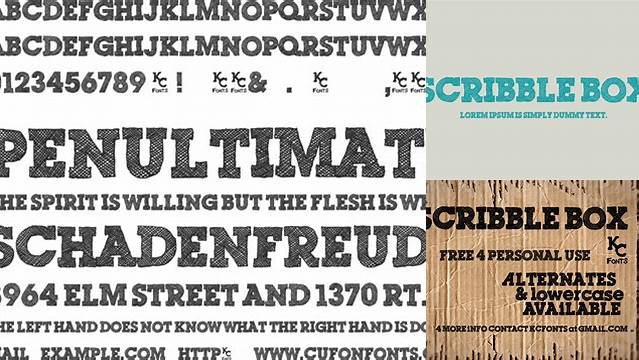
Scribble Box Font: Free Download & Design Tips
Scribble Box Font: Free Download and Unleash Your Creativity
Hey guys! Are you looking for a way to add a touch of fun, personality, and a handmade feel to your projects? Look no further! The Scribble Box font might be just what you need. This awesome font is all about that cool, scribbled look that can make your designs pop. And the best part? You can get a Scribble Box font free download! Ready to dive in? Let's get started.
What Makes Scribble Box Font So Awesome?
First off, let's talk about what makes the Scribble Box font so special. It's not just another font, trust me. The whole vibe is about that handwritten feel. It's like someone took a pen and just doodled it out, giving your text an organic, imperfect, and super engaging look. This kind of style is perfect for projects where you want to show a bit of personality and a human touch. I mean, who doesn't love that?
This font is fantastic for creating a sense of playfulness and energy, which makes it ideal for grabbing attention. Think about it: you're scrolling through the web or checking out ads, and a font that's all neat and clean might just blend in. But the Scribble Box font, with its quirky, scribbled style, immediately draws your eye. It's like, "Hey, look at me! I'm fun!" You can use the Scribble Box font for a whole bunch of things, like designing eye-catching logos, super cool social media posts, and even creating a unique look for your website. It's the perfect way to make your brand stand out in a crowded world. Whether you're putting together an invitation for a birthday party, designing a flyer for a local event, or just want to spice up your personal blog, the Scribble Box font can add that much-needed spark. And seriously, it’s easy to download and install, so you can start using it right away! So if you are on the lookout for that awesome and great design, the Scribble Box font is always a great choice! Get that Scribble Box font free download today.
Using the Scribble Box Font in Your Projects
Now that you've got your Scribble Box font free download and you've installed it, let's talk about how you can put it to good use. This font is incredibly versatile, and you can use it in a ton of creative projects. The whole point of using the Scribble Box font is to add a unique, handcrafted touch to your designs. Think about it: instead of going with a boring, standard font, you're choosing something that has character and personality. This can make a huge difference in how your audience perceives your work. A good example is using it for creating logos. A logo is the face of your brand, so it needs to be memorable and reflect your brand's personality. The Scribble Box font is great for making logos that feel approachable, friendly, and creative.
Another great way to use the Scribble Box font is for social media posts. In a world where everyone is competing for attention, your posts need to stand out. Using this font is an easy way to make your content pop. Whether you're sharing quotes, announcements, or just some fun graphics, the font can add that extra something that grabs people's attention. You can also use the font for designing website elements. Websites are all about creating an engaging user experience. The Scribble Box font can be used for headlines, calls to action, or even just to add a bit of visual interest to your site. It's a great way to make your website feel more unique and less generic. Finally, this font is also perfect for creating print materials. The font can be used for brochures, flyers, posters, and more. The style can make your print materials feel more personal and engaging. The best part? The Scribble Box font free download is easy to get.
Tips and Tricks for Using Scribble Box Font Effectively
Alright, you've got your Scribble Box font free download and you're ready to go. But before you dive in, here are a few tips to help you get the most out of this awesome font. Keep in mind that the Scribble Box font is bold and unique. It’s not always the best choice for every situation. While the font can add a touch of playfulness and personality to your design, it can also be a little difficult to read at times. So, use it in moderation. When choosing this font, think about what you are trying to communicate and who your target audience is. If you are designing a poster or a website that is geared toward kids or young adults, this font can be a great choice. If you are working on a more professional or formal project, it may not be the best option. Try to mix it with other fonts. Pairing it with a clean, readable font can create a nice contrast and improve readability. For example, you could use the Scribble Box font for headings and a more standard font for body text.
When using the font, be mindful of the size. Because of its unique style, it can become difficult to read if it is too small. Experiment with different sizes to find what works best for your project. You can also play with the color. The Scribble Box font looks great in a variety of colors. Don’t be afraid to experiment. Also, be careful about overusing the font. When used sparingly, the font can be a great tool for adding a touch of playfulness to your design. Using the font too much can make your design look messy and unprofessional. Finally, make sure you have the right license for your project. When you download this font, double-check the terms of use. Some fonts are free for personal use but require a license for commercial projects. The Scribble Box font free download is readily available, so be sure to check the usage rights!
Conclusion: Unleash Your Creativity with Scribble Box Font
So, there you have it! The Scribble Box font is a super fun and versatile font that you can use to add a unique touch to your projects. With the easy Scribble Box font free download options available, there's no reason not to give it a try. Remember to use it strategically, mix it with other fonts, and have fun with it. Whether you're a seasoned designer or just starting out, this font can add a new dimension to your work. Go ahead, download this fantastic font and let your creativity run wild! Happy designing!